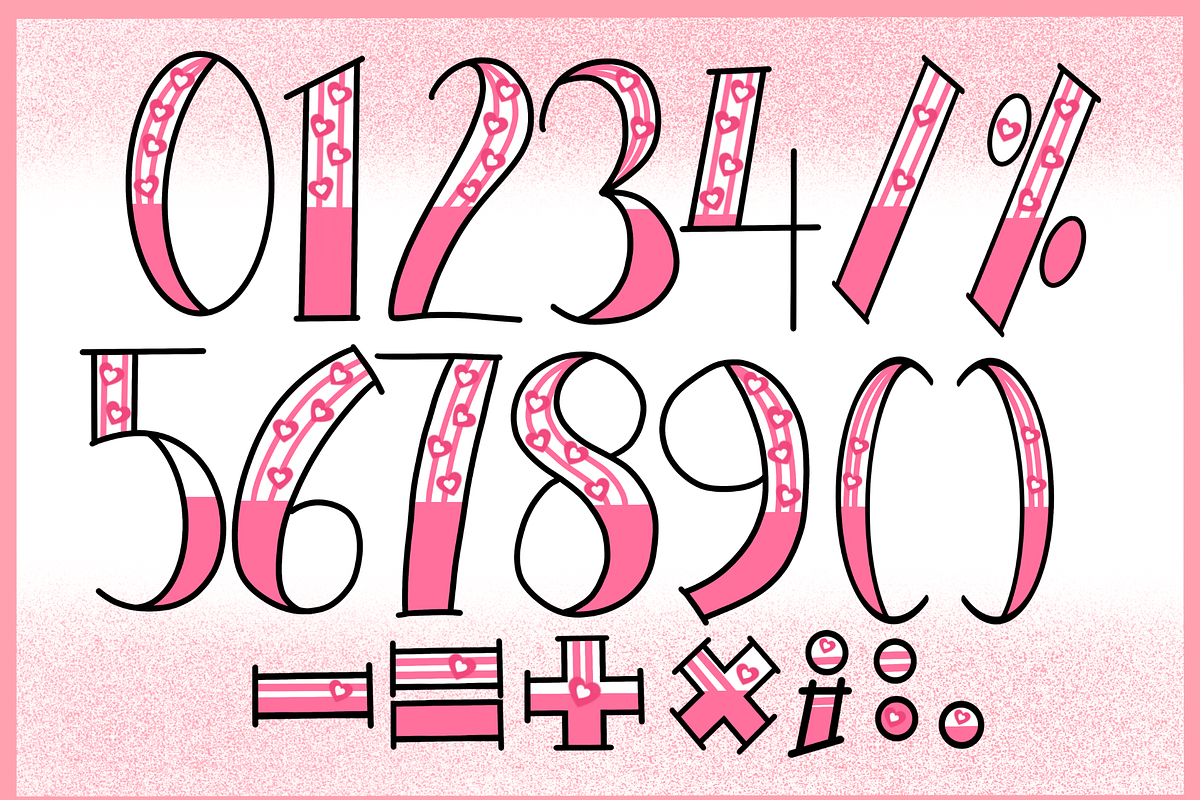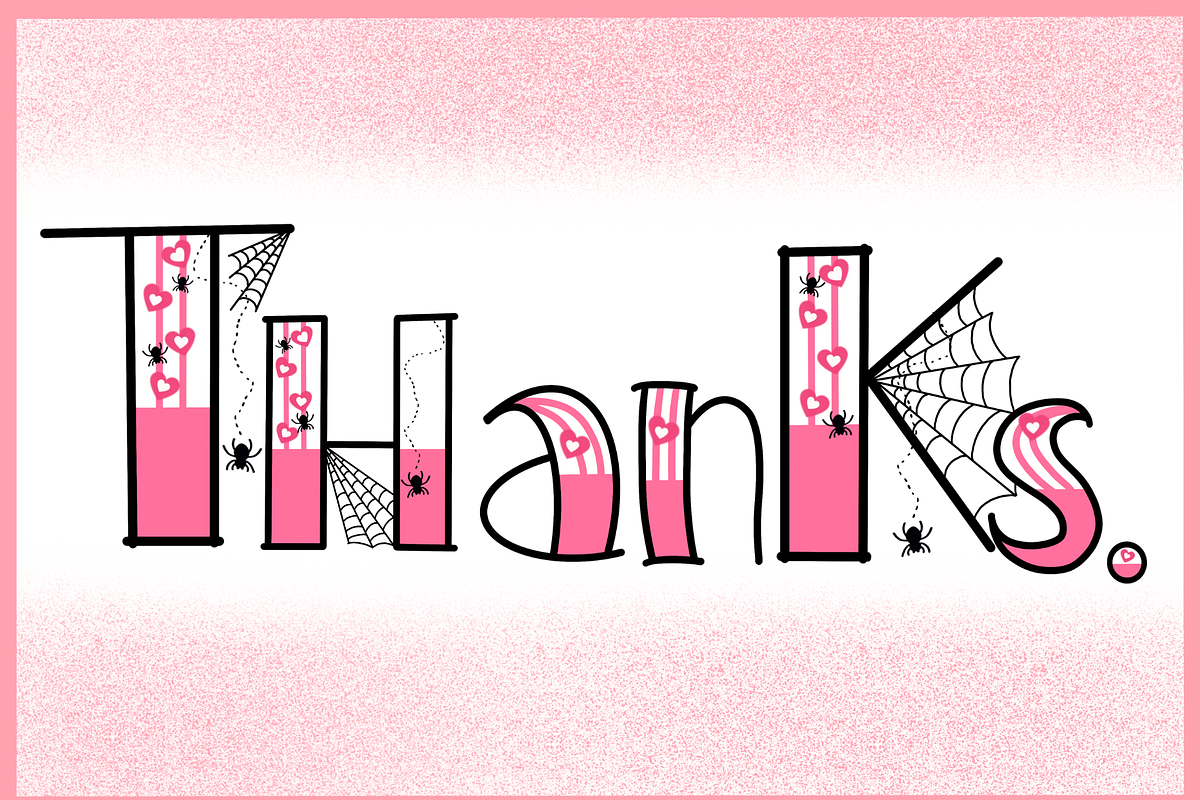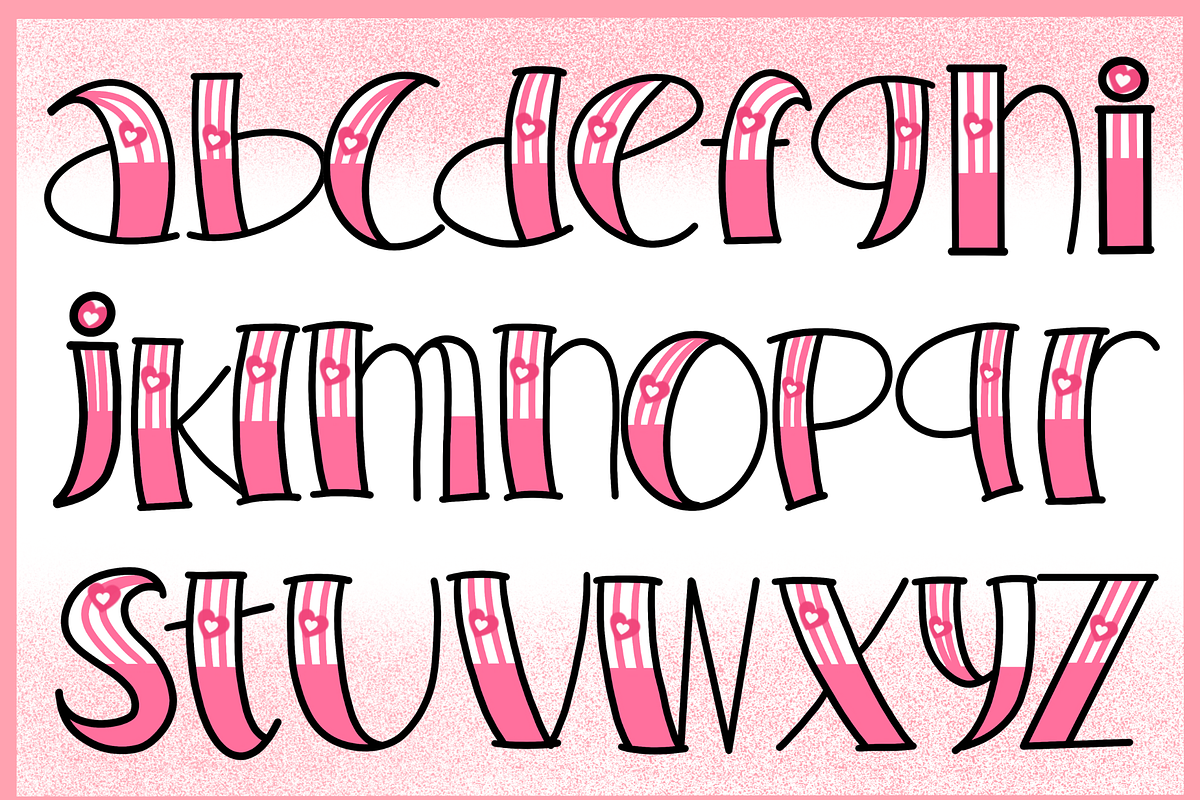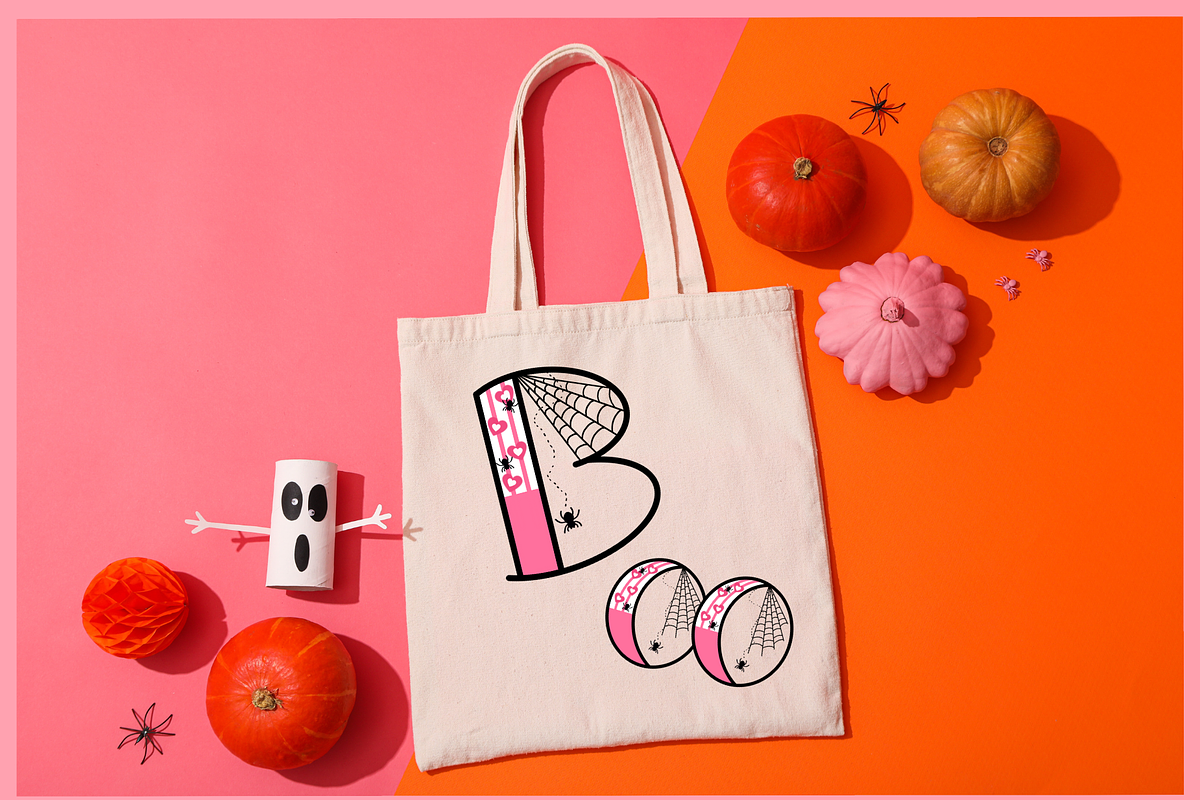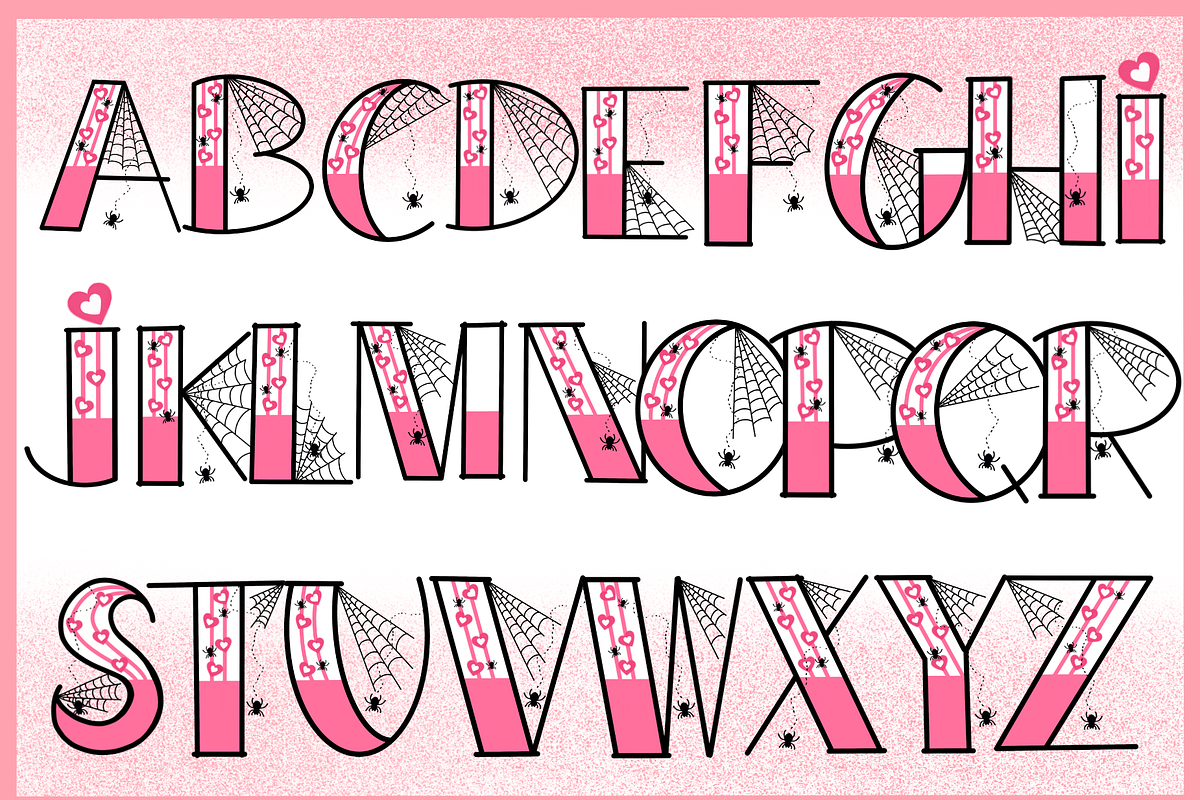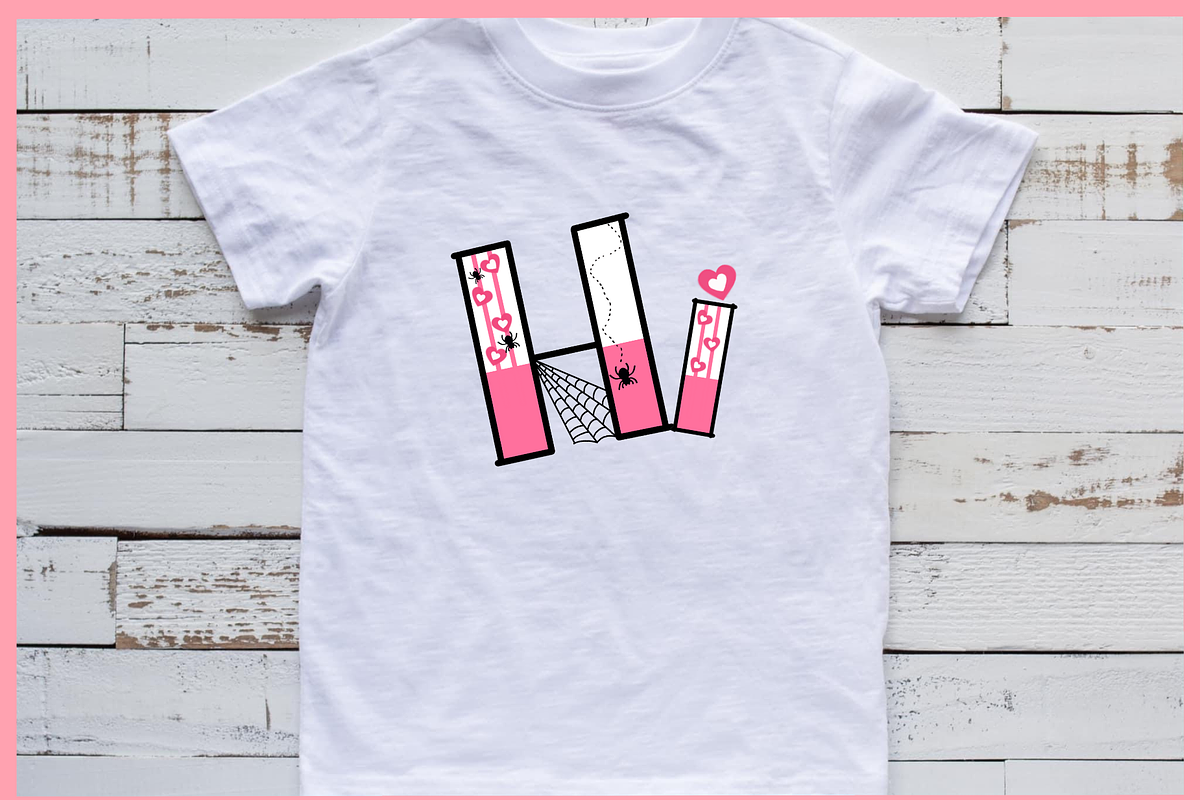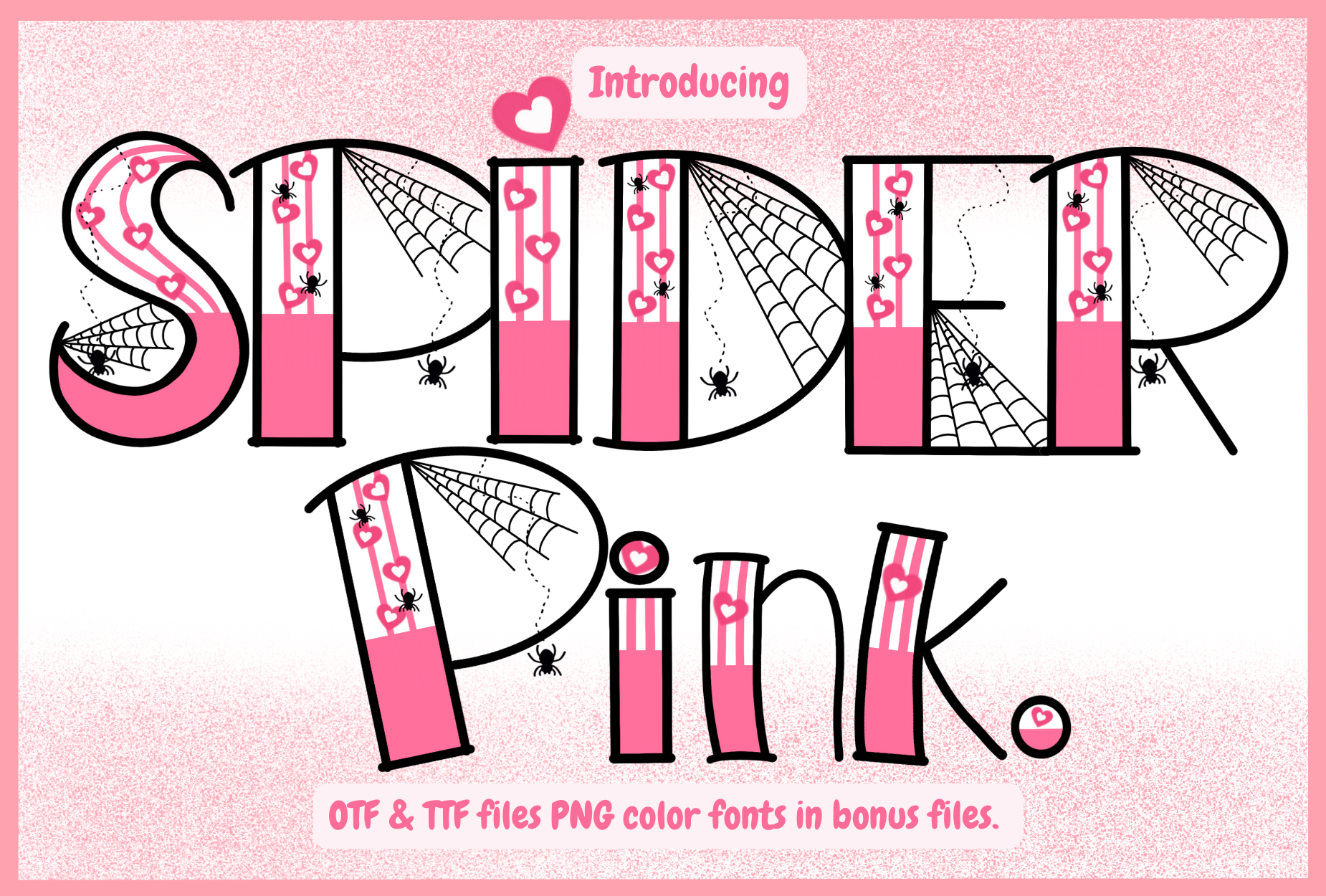
Spider Pink is a quirky and fun color display font featuring bold letterforms filled with dangling hearts, cobwebs, and tiny black spiders, all wrapped in vibrant shades of pink.